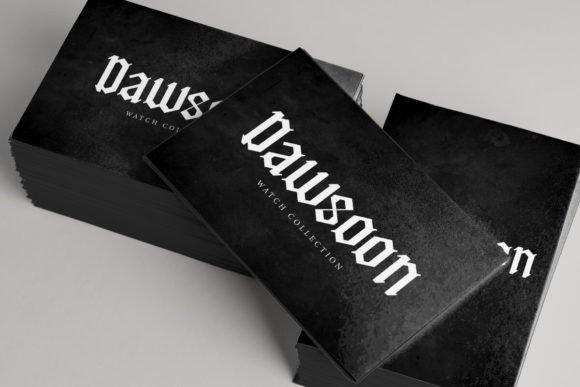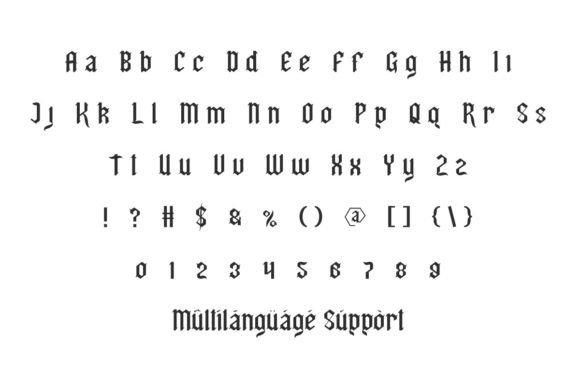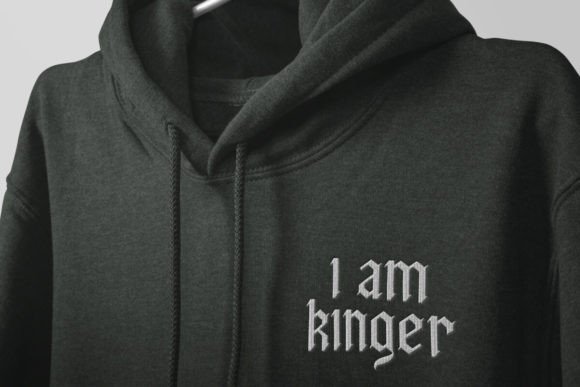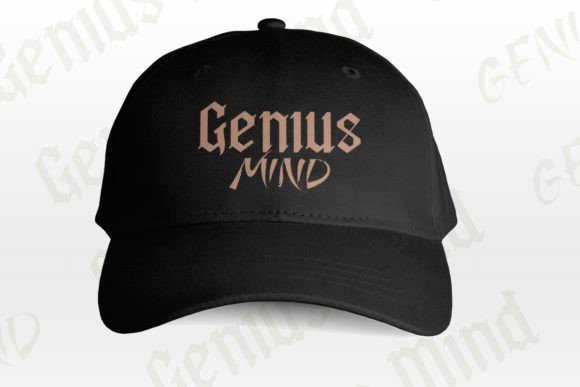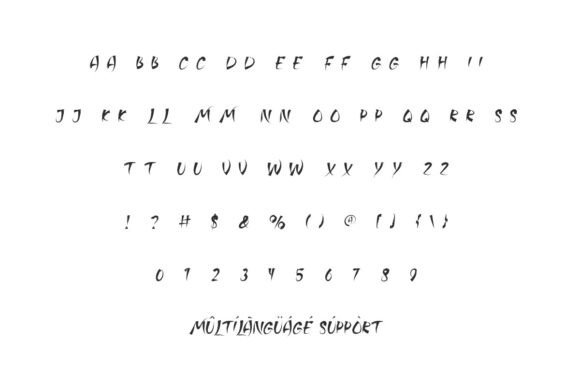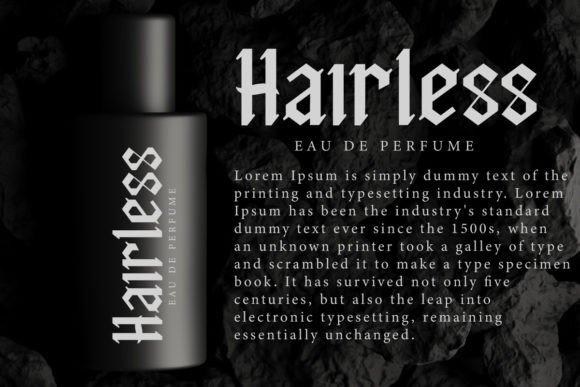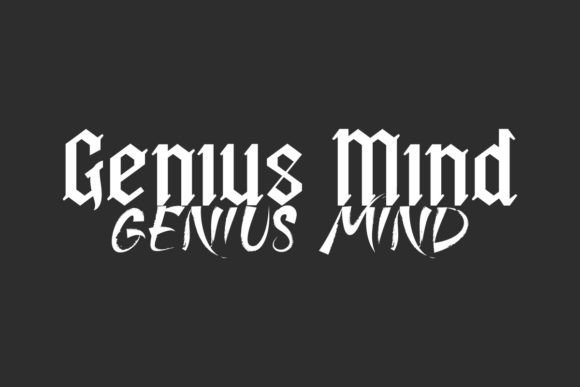
Genius Mind Font: Unleash Your Creativity with this Mysterious Font Duo
Are you a designer, craftsperson, or simply someone who loves to experiment with typography? Look no further! Introducing Genius Mind Font, a captivating font duo that combines two distinct styles: Gothic Display and Horror Brush Font. This dynamic pair is sure to elevate your creative projects and leave a lasting impression.
What’s in a Font Duo?
Genius Mind Font is not just any ordinary font; it’s a carefully crafted duo that brings together two contrasting styles. On one hand, you have the bold and dramatic Gothic Display font, perfect for making a statement. On the other hand, the Horror Brush Font adds a touch of elegance and sophistication with its stylish brush strokes. This versatility makes it an ideal choice for a wide range of industries, including:
- Accessories
- Custom design
- Fashion
- Interior design
- Marketing
- Movies
- Music
- Photography
- Publishing
Exploring the Gothic Display Font
The Gothic Display Font is a bold and striking addition to the Genius Mind Font duo. Its blackletter style is reminiscent of traditional Gothic typography, with dramatic flourishes and intricate details. This font is perfect for:
- Headlines and titles that demand attention
- Creating a sense of mystery or drama
- Adding a touch of elegance to your designs
Unleashing Creativity with the Horror Brush Font
The Horror Brush Font is a stylish and modern addition to the Genius Mind Font duo. Its brush strokes add a touch of whimsy and playfulness, making it perfect for:
- Creative projects that require a personal touch
- Adding a sense of movement and energy to your designs
- Creating a sense of sophistication and elegance
Why Choose Genius Mind Font?
So, what sets Genius Mind Font apart from other font duos on the market? Here are just a few reasons why designers and crafters are falling in love with this mysterious font duo:
- Versatility: With two distinct styles, you can use Genius Mind Font for a wide range of projects and industries.
- Uniqueness: The combination of Gothic Display and Horror Brush Font is truly one-of-a-kind, ensuring your designs stand out from the crowd.
- Ease of use: The fonts are carefully crafted to be easy to read and use, even for those new to typography.
Tips and Tricks for Using Genius Mind Font
To get the most out of Genius Mind Font, here are some tips and tricks to keep in mind:
- Mix and match: Experiment with combining the Gothic Display and Horror Brush Font to create visually striking designs.
- Play with sizes: Use different font sizes to create hierarchy and emphasis in your designs.
- Add texture: Experiment with adding texture and patterns to your designs to give them an extra layer of depth.
Genius Mind Font is a game-changing font duo that’s sure to unleash your creativity and take your designs to the next level. With its bold and dramatic Gothic Display font and stylish Horror Brush Font, this mysterious duo is perfect for designers, craftspersons, and anyone looking to add a touch of elegance and sophistication to their projects. So why wait? Download Genius Mind Font today and discover a world of creative possibilities!